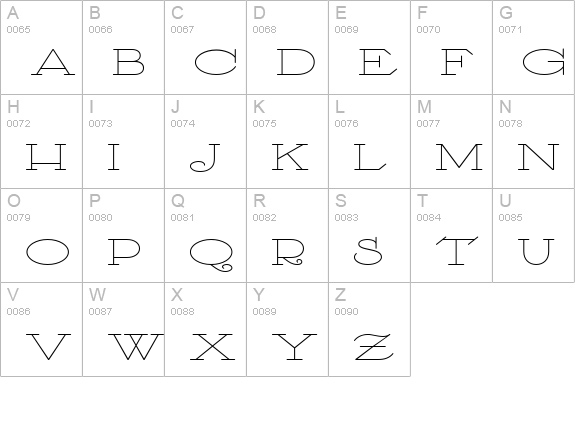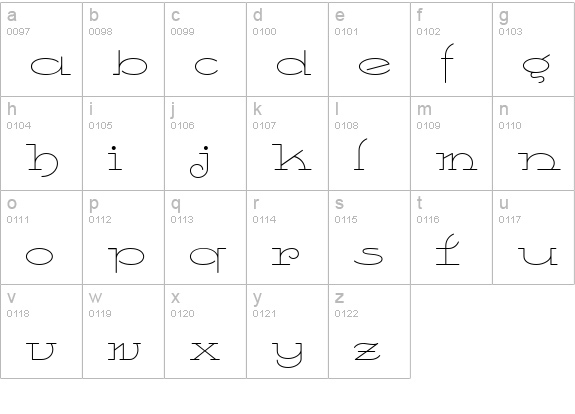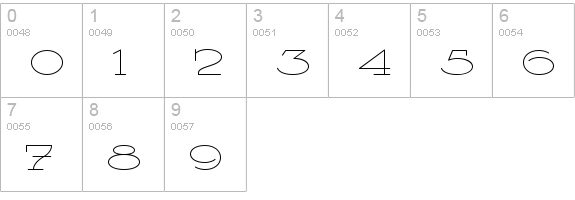
TootSweetBistroNF Medium Font Details
TootSweetBistroNF Medium is a balanced, medium-weight variant in the TootSweetBistroNF typeface family \xE2\x80\x94 well suited to sub-headlines, navigation, and balanced editorial work.
TootSweetBistroNF Medium font is a perfect blend of elegance and versatility. Its clean and modern design will surely make your projects stand out from the crowd. This font is ideal for a variety of creative endeavors, including logos, branding, packaging, posters, and more. With its medium weight, TootSweetBistroNF Medium strikes the perfect balance between sophistication and readability. It is legible both in small sizes and large headlines, making it suitable for a wide range of applications. One of the best features of TootSweetBistroNF Medium font is that it is freely available to download at FontsMarket.com. You can easily access this font and incorporate it into your designs without any hassle. This makes it an excellent choice for designers, students, and anyone looking to add a touch of elegance to their projects without breaking the bank. TootSweetBistroNF Medium font captivates with its clean lines, subtle curves, and refined letterforms. Its timeless appeal ensures that it will remain relevant for years to come. Whether you're designing a logo for a high-end restaurant, creating a sleek packaging design, or crafting an eye-catching poster, TootSweetBistroNF Medium font is the perfect choice to convey a sense of sophistication and style. Download TootSweetBistroNF Medium font now from FontsMarket.com and unlock the endless possibilities it offers. With its elegant design and free availability, this font is a must-have for any designer or creative individual looking to elevate their projects to new heights.